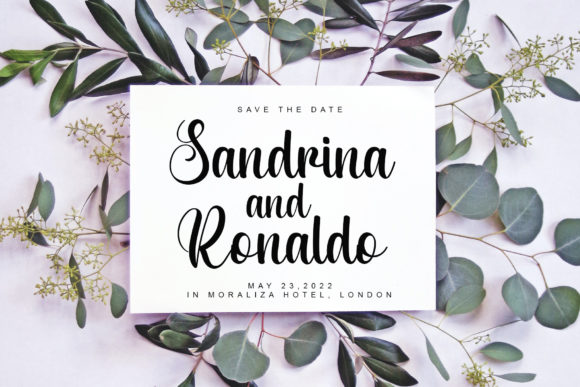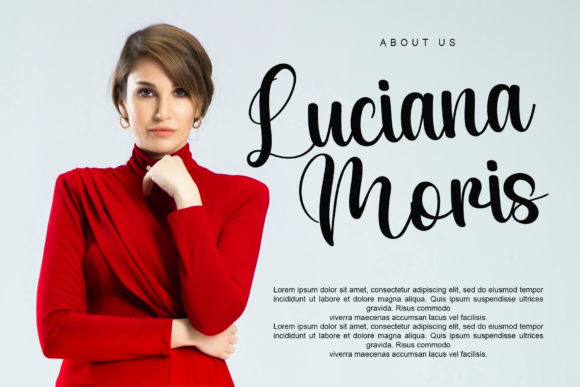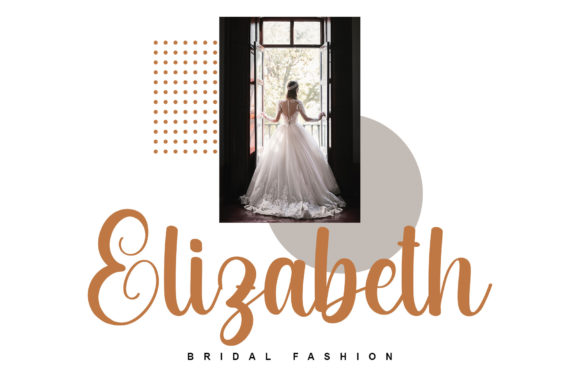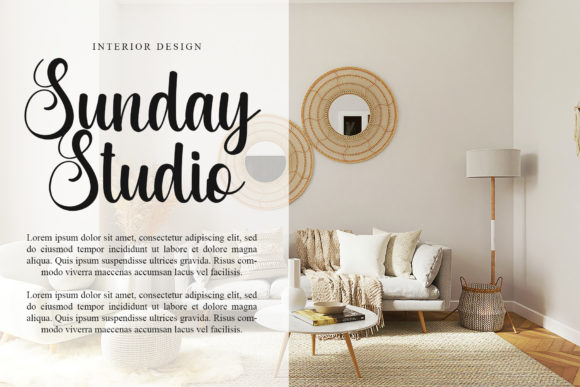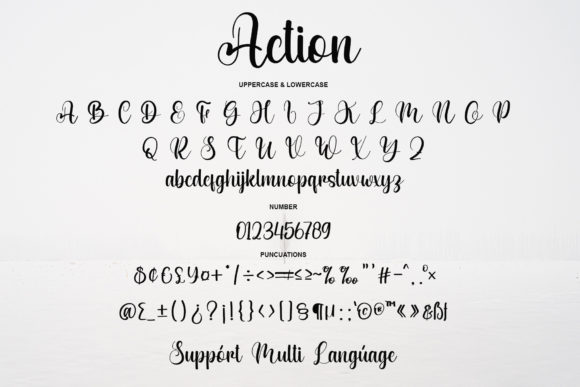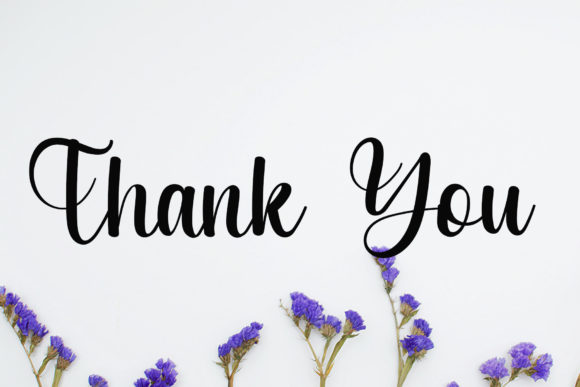
Action Font
About Action Font
“Action” is a modern and simple handwritten script font, crafted in a random and free style. This versatile font is well-suited for a wide range of creative design projects, including logotypes, headline fonts, corporate identity, brand identity, apparel industry, posters, music covers, movie titles, games, magazines, books, comics, cartoons, YouTube content, Instagram posts, websites, and more.
The unique and free-flowing style of “Action” lends itself to creating a distinctive and casual vibe in various design applications. Its modern touch makes it suitable for contemporary branding, while its simplicity allows for easy readability across different mediums.
Imagine “Action” as the focal point in a logotype, where its random and handwritten script adds a personalized and dynamic touch to a brand identity. The font’s versatility ensures that it can adapt seamlessly to different industries, from apparel to entertainment.
In poster designs or promotional materials, “Action” stands out with its modern and simple aesthetic. The font’s free style brings an element of creativity and spontaneity, making it engaging for diverse visual communication purposes.
For online platforms like YouTube and Instagram, “Action” adds a modern and casual feel to your content, making it visually appealing and relatable to your audience.
As you integrate “Action” into your creative projects, leverage its modern and simple handwritten script to bring a sense of authenticity and creativity. Whether you’re designing for print or digital media, this font serves as a versatile and stylish choice for expressing your unique design vision.